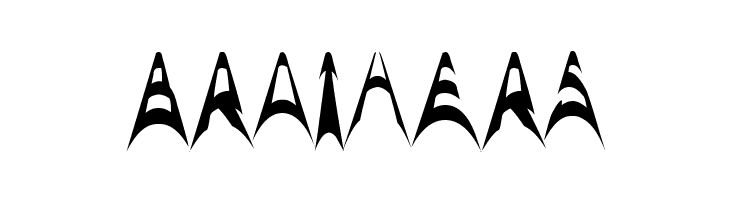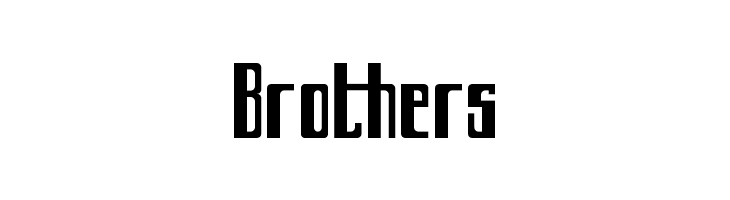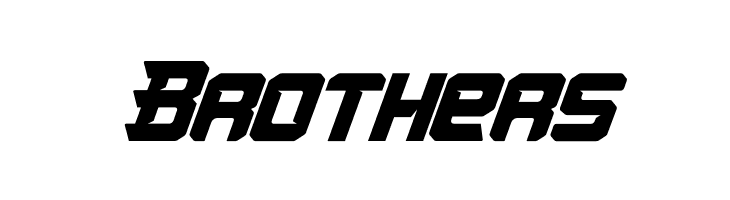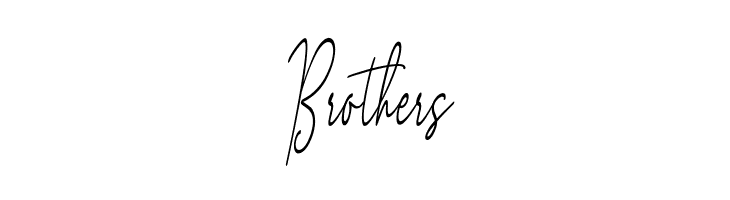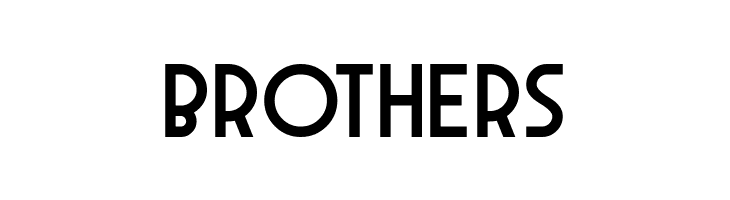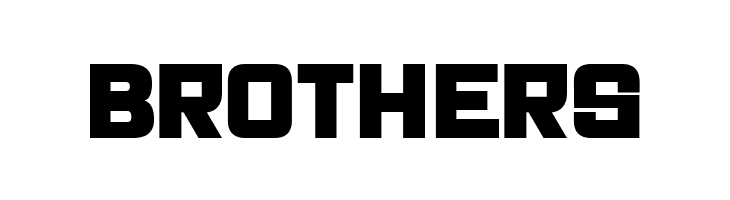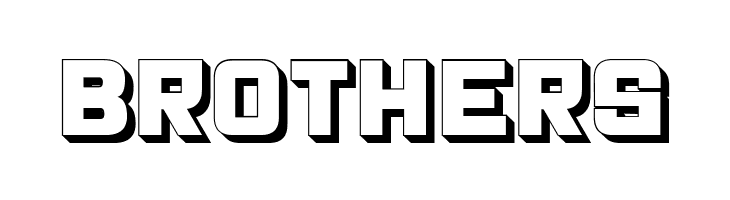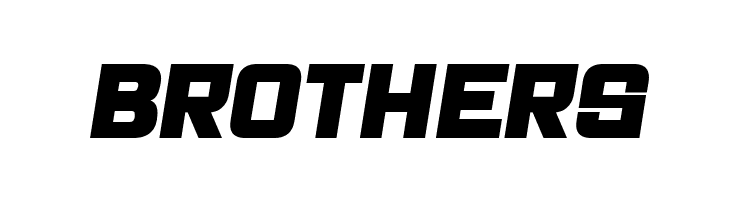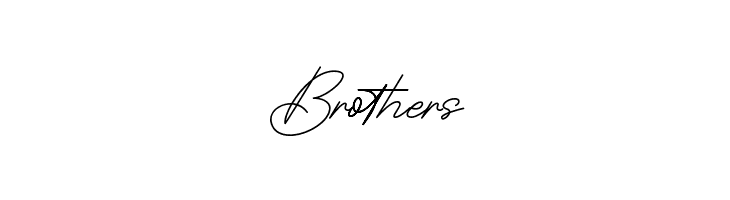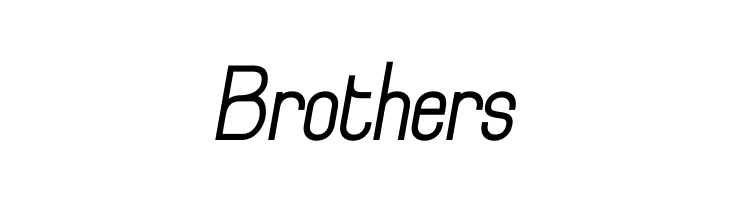
A bold, hollow, and futuristic font with a geometric and digital style.
A bold, retro arcade-inspired font with geometric and angular characters.
A bold, geometric font with a futuristic and edgy design.
A playful, bold font with rounded strokes and a friendly appearance.
A bold, geometric font with a futuristic, arcade-inspired design.
An elegant script font with fluid, continuous strokes and a sophisticated style.
A bold, geometric font with a modern twist and vintage influences.
A bold, modern font with geometric, angular characters ideal for headlines.
A bold, geometric font with clean lines and a modern aesthetic.
A dynamic, handwritten-style font with bold strokes and a casual feel.
A bold, angular font with a futuristic and industrial design.
A whimsical script font with elegant curves and decorative elements.
Hand-drawn archaeological illustrations form each character in a decorative display style.
A classic serif font with high contrast and elegant serifs.
A classic serif font with high contrast and elegant curves.
A bold, gothic-inspired font with sharp, angular edges and dramatic strokes.
A modern, italicized font with sleek, elongated characters and consistent stroke width.
A modern, italic font with a sleek and dynamic design.
A bold, angular font with a futuristic and dynamic design.
A bold iconographic font with archaeology-themed symbols.
A sophisticated serif typeface with modern elegance and high contrast.
A playful, handwritten font with a casual and dynamic style.
A geometric, monospaced font with consistent stroke widths and a modern design.
A graceful, cursive handwritten font with a modern calligraphic style.
A modern, playful font with geometric and organic elements.
A bold, 3D italic font with a futuristic and dynamic style.
A bold, 3D font with shadow effects for a striking, modern look.
A bold, italicized font with a modern, angular design.
A bold, geometric font with a modern, condensed style.
A bold, modern, and geometric font with high contrast and condensed characters.
A modern, italicized font with bold strokes and a sleek, condensed design.